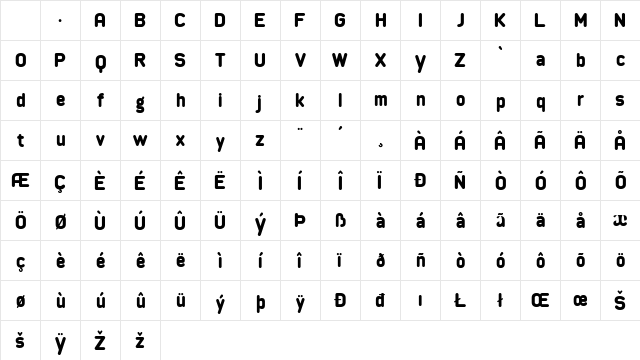
Complete Longdoosi Personal Use RegularPersonalUse glyph index. Displaying only characters natively supported by Longdoosi Personal Use RegularPersonalUse font.
Longdoosi Personal Use is a composed and adaptable typeface that performs quietly and consistently across a wide range of design contexts.